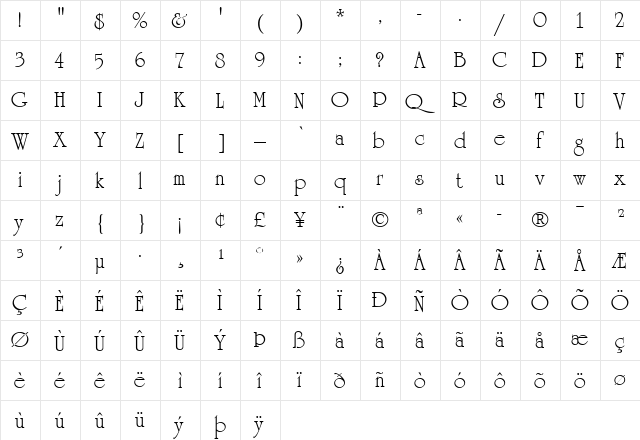
University LT Roman Regular
Design Context for University LT Roman Typeface
University LT Roman is a composed and adaptable typeface that performs quietly and consistently across a wide range of design contexts. Its slender proportions lend an understated elegance to any composition.